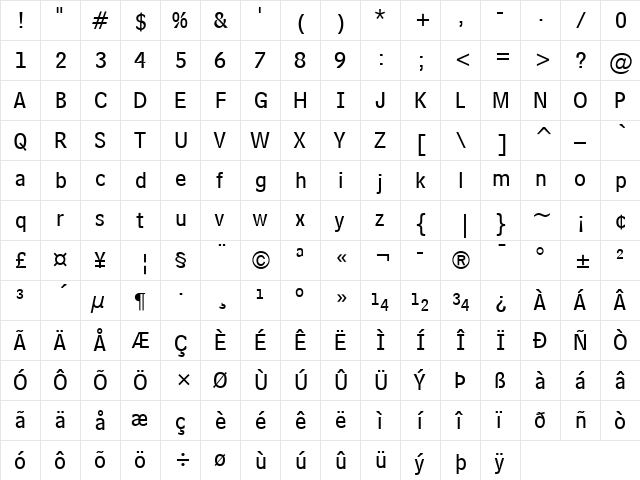
BellCentennial LT SubCaption Regular
Design Context for BellCentennial LT SubCaption Typeface
BellCentennial LT SubCaption takes a measured approach to typography — its balanced proportions and neutral character make it a reliable workhorse for both digital and print work. Its slender proportions lend an understated elegance to any composition.